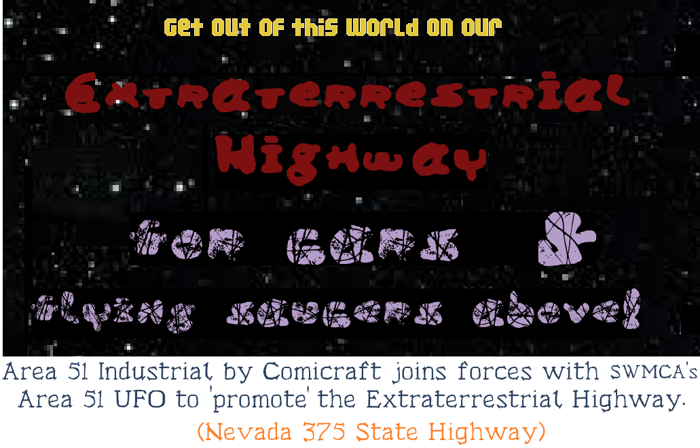
Area 51 UFO Font
Area 51 UFO Apocalypse Style
This was the first SWMCA typeface of 2014 . Fonts making up the Area 51 UFO typeface were also the first space fonts created by SWMCA in close to 20 years. The Alien Greeting is the smooth regular version and the Apocalypse eroded font is well "chaotic".
This was the only free font by SWMCA to include Hebrew characters; for many years, and probably the first "space font" in history to include these. Cyrillic and Greek characters are included, and this may very well be the first space font to include these too. If not, it's one of the few that do.
While this was the first typeface to be named for Area 51; to include "UFO" as part of it's name, it's not alone in using "Area 51" as part of it's name. Our typeface is named Area 51 UFO; while the older one was created by Comicraft in 2000, is named Area 51 Industrial. Ours was created 14 years later. Comicraft was founded by Richard Starkings and John Roshell, and produces primarilty comic book and sci-fi fonts and typefaces.
SWMCA wisely decided to call it's typeface Area 51 UFO; instead of just "Area 51", just in case there might another "Area 51" named font or typeface out there; -and we later learned that there was. The Comicraft Area 51 Industrial font is not a free font to our knowledge. and isn't being offered here. A Google search can point you to distributors of the earlier Comicraft typeface.
Usage suggestion:
THE NON-STENCIL Area 51 Industrial FONTS CAN CO-EXIST WITH OUR Area 51 UFO TYPEFACE, WHILE THEIR STENCIL FONT IS COMPATIBLE WITH THE Apocalypse FONT.